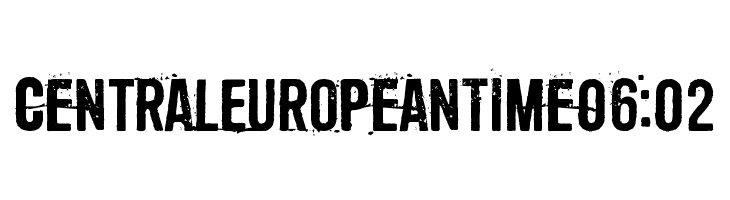
A bold, expressive handwritten font with dynamic, fluid strokes and a brush-like texture.
A flowing, elegant cursive font with smooth, continuous strokes.
A bold, expanded, and italic font with a futuristic and dynamic style.
Whimsical hand-drawn doodle extras with a playful, sketchy style.
A bold, geometric font with sharp angles and strong presence, perfect for impactful headlines.
A bold, distressed font with a grunge aesthetic and blocky, angular characters.
A 3D outline font with a modern, geometric style.
A futuristic, geometric font with blocky, angular letterforms.